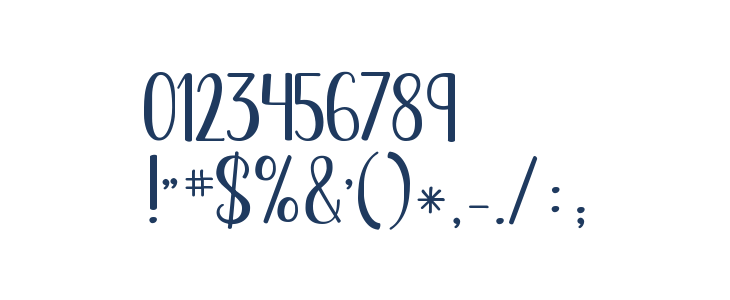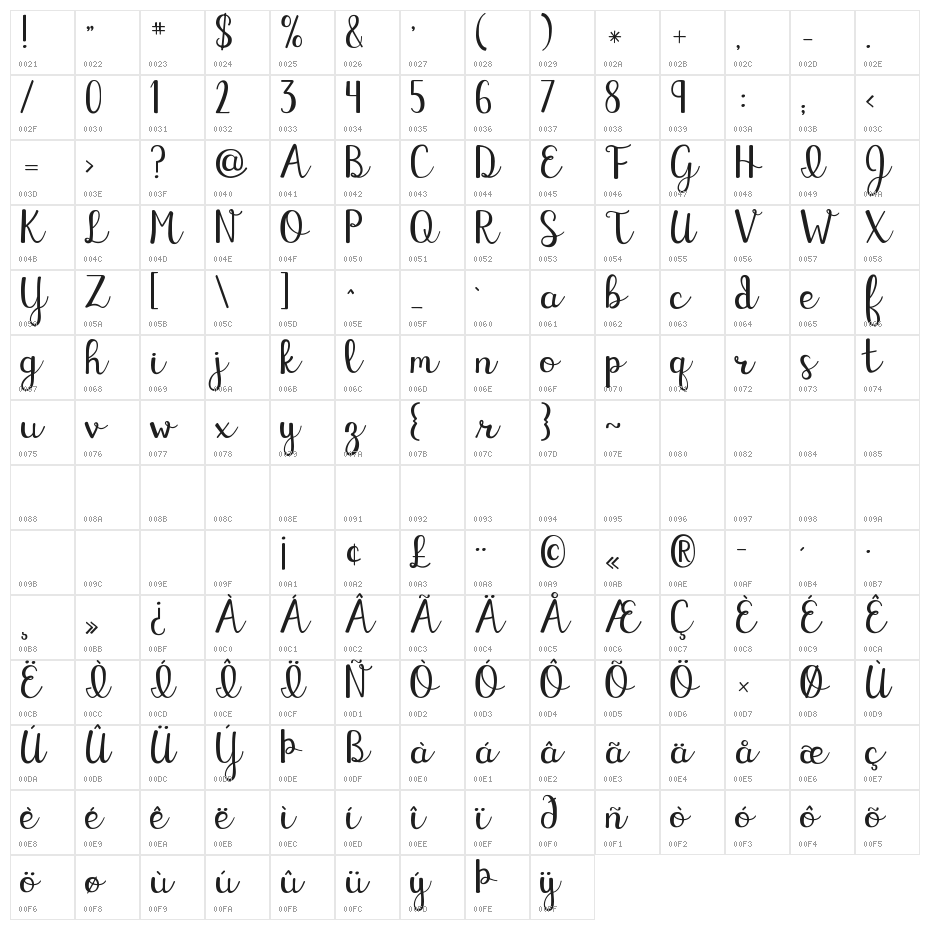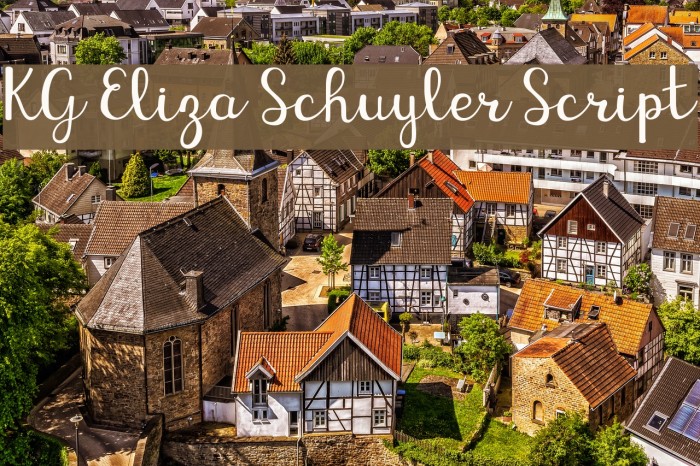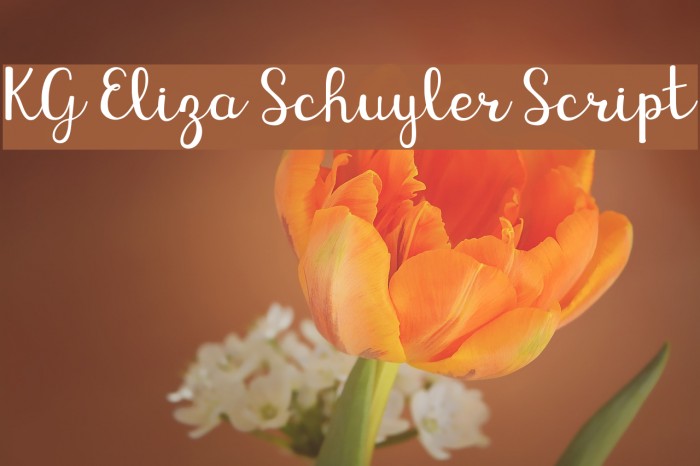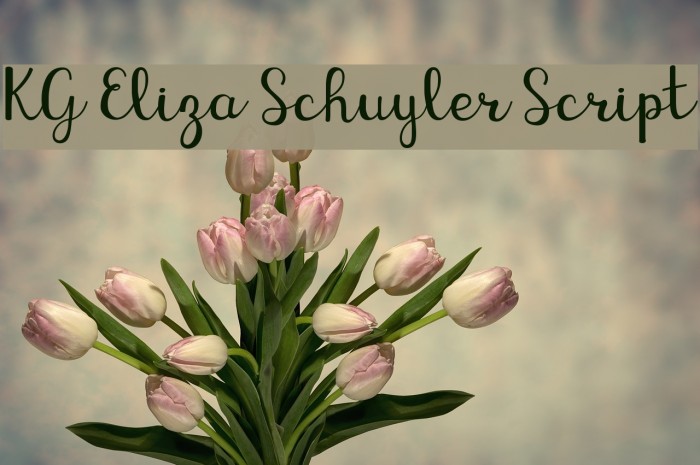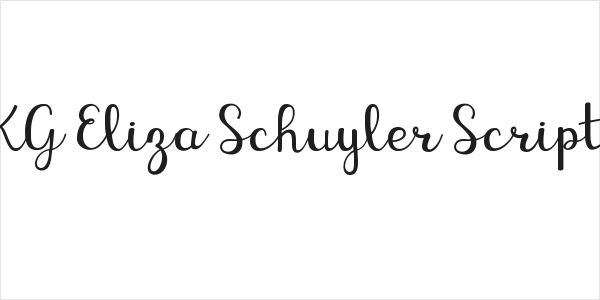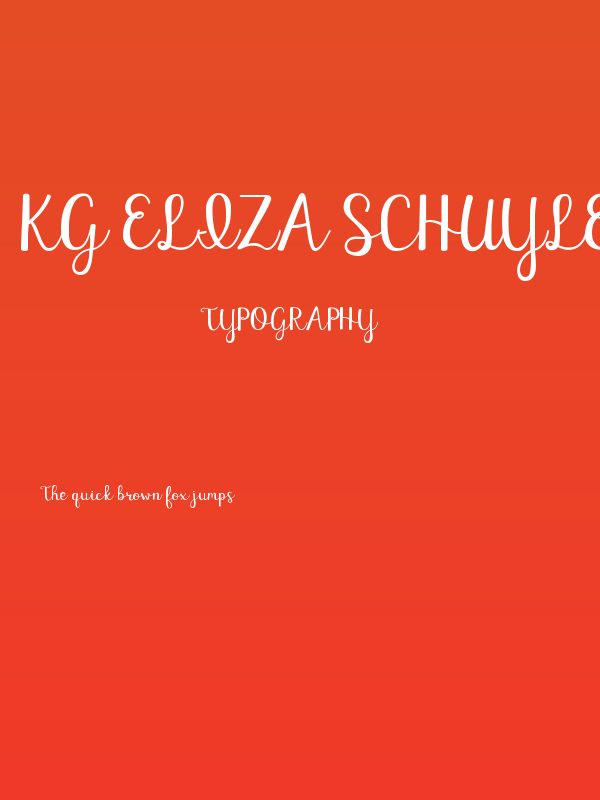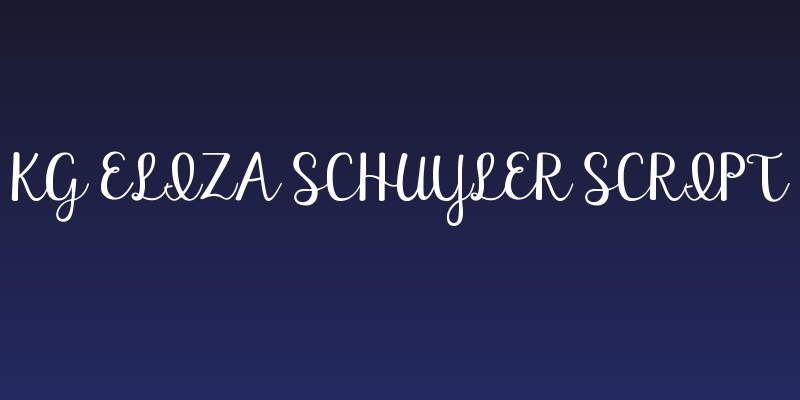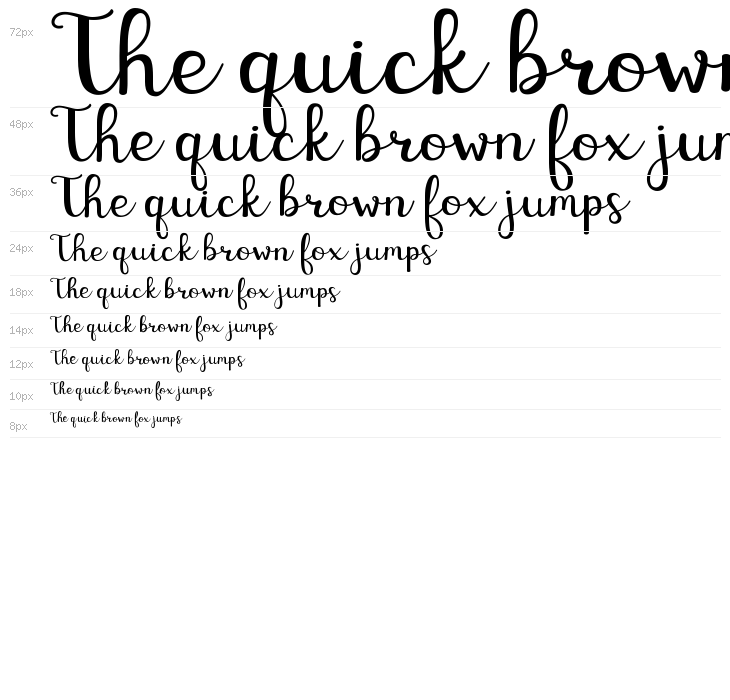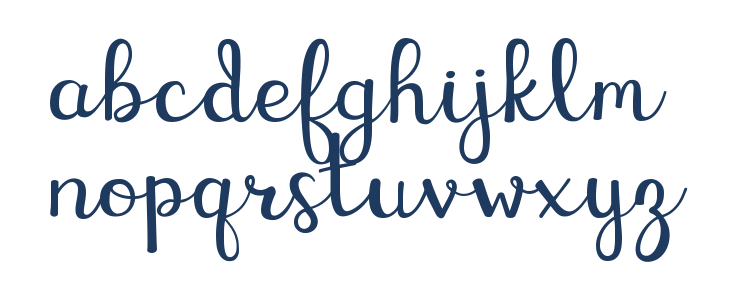
KG Eliza Schuyler Script Font
KG Eliza Schuyler Script Description
This font features a charming and elegant script style with a playful yet sophisticated appearance. The uppercase letters are bold and flowing, with distinctive loops and swirls that add a touch of whimsy. The lowercase letters maintain a consistent style, with smooth curves and a slightly slanted orientation, enhancing the handwritten feel. The numerals are clear and legible, matching the overall aesthetic with subtle flourishes. Special characters are thoughtfully designed, integrating seamlessly with the rest of the font. The overall look is both modern and classic, making it versatile for various design needs.
| Overall Style | Modern, Classic |
| Proposed Projects | Ideal for wedding invitations, greeting cards, branding projects, and elegant logos. |